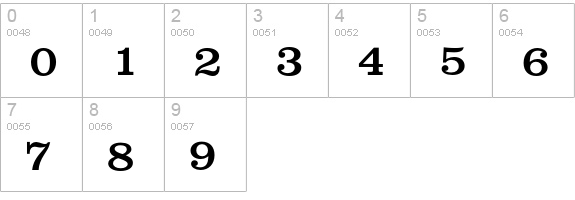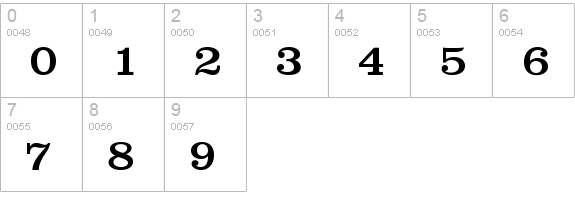
Clarendon-Medium Font Details
Clarendon-Medium is a balanced, medium-weight variant in the Clarendon typeface family \xE2\x80\x94 well suited to sub-headlines, navigation, and balanced editorial work.
Clarendon-Medium is a classic and timeless font that exudes elegance and sophistication. Its balanced letterforms and sturdy serifs make it perfect for a wide range of design projects, from traditional to modern. The medium weight strikes a perfect balance between boldness and readability, making it ideal for both headlines and body text. What sets Clarendon-Medium apart is that it is available for free download at FontsMarket.com. This means that you can easily access and use this beautiful font in your projects without any cost. Whether you're designing a website, creating printed materials, or working on a branding project, Clarendon-Medium's versatility and timeless appeal will elevate your designs to the next level. Download it today and add a touch of sophistication to your work!